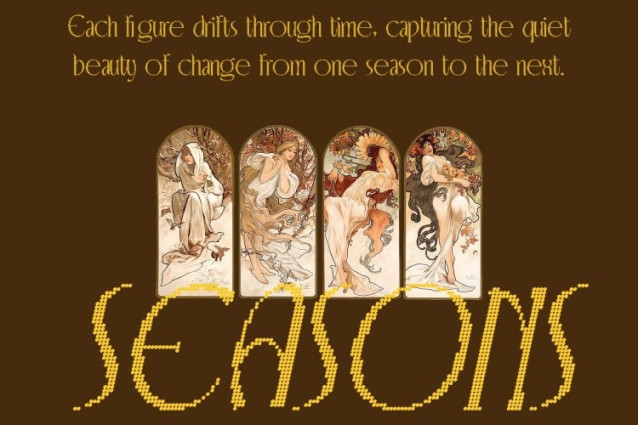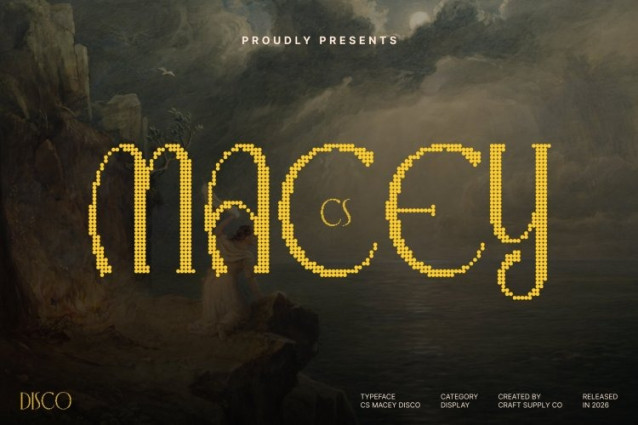
CS Macey Disco Font
CS Macey Disco Font This is a modern Art Nouveau display font defined by smooth organic lines and graceful movement, elevated with a subtle disco spirit. Inspired by the flowing beauty of classic Art Nouveau and reimagined through a contemporary, nightlife-ready lens, this font delivers an elegant yet vibrant visual presence where timeless artistry meets modern glamour.
Elegant Curves with Rhythmic Flow
The soul of this font lives in its fluid, expressive letterforms. Soft curves and elongated strokes create a natural rhythm that feels almost dance-like, as if the letters are moving under shimmering lights. This sense of motion gives this font a captivating elegance refined, sensual, and full of visual energy without becoming excessive.
Artistic Sophistication with a Festive Glow
Blending decorative Art Nouveau beauty with modern clarity and disco-inspired flair, this font feels luxurious yet alive. Its graceful forms carry a subtle sense of celebration, echoing the elegance of vintage posters mixed with the excitement of a stylish night out.
Perfect for Editorials, Fashion, and Glamorous Branding
Designed for premium and high-impact applications, this font shines in editorials, luxury branding, fashion campaigns, packaging, and statement visuals. Its flowing elegance and festive energy make it ideal for designs that want to feel artistic, sophisticated, and effortlessly glamorous like typography dancing between classic beauty and modern nightlife.